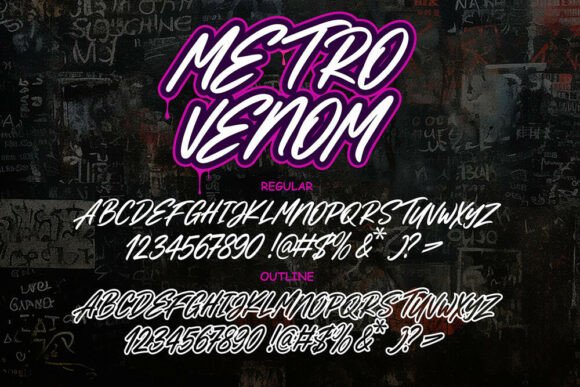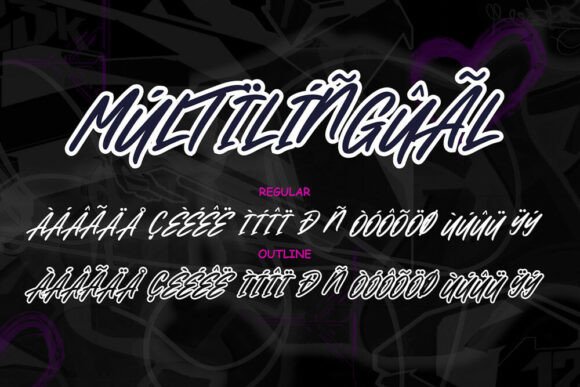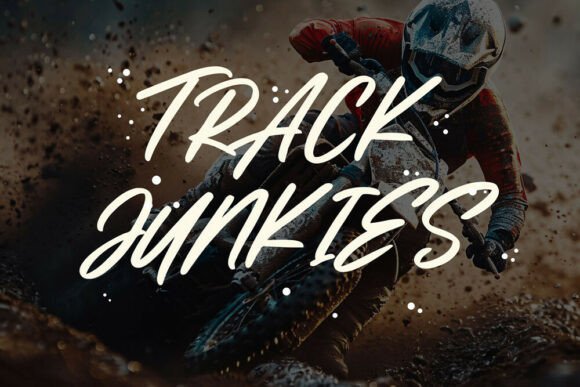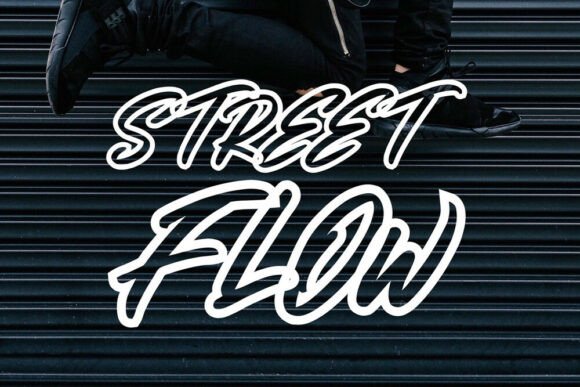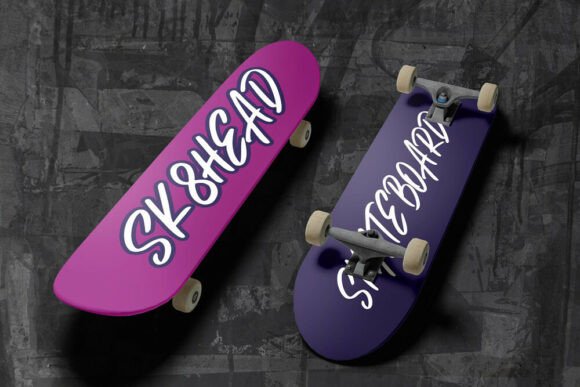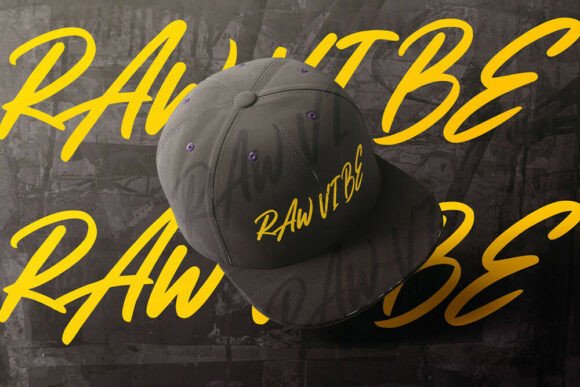
Unleashing the Power of Street Expression with Metro Venom Font
Imagine you’re working on a creative project, and you need a font that screams attitude and confidence. You’re browsing through design resources, searching for that perfect blend of raw street expression and bold contemporary design. Suddenly, you stumble upon Metro Venom Font – an outlined graffiti brush typeface that’s about to revolutionize your typography game.
With its fast strokes, sharp edges, and expressive movement, Metro Venom Font is the perfect design resource for designers who want to add a fearless personality to their visual identity. Its unique combination of brush texture and open outline makes it stand out from other fonts, giving it a high-quality, authentic feel that’s rarely found in digitally produced graffiti fonts. And the best part? You can download it for free, making it a valuable addition to any design project.
Key Features of Metro Venom Font
- Unique, bold, and modern style with a transparent background, ideal for use in various design applications.
- Includes uppercase and lowercase letters, as well as special characters, to provide comprehensive support for creative projects.
- Perfect for use in logo design, typography, and other creative applications where a bold and modern font is required.
Honest Review: Metro Venom Font
I recently stumbled upon the Metro Venom Font and was excited to give it a try. As a designer, I’m always on the lookout for new and high-quality design resources to enhance my creative projects. And, to my delight, this font definitely delivered.
Here are some of the things that worked well for me:
- ✨ Unique and edgy design aesthetic that sets it apart from more traditional fonts
- ✨ High-quality vector files that can be scaled up or down without losing any detail
- ⚠️ Limited font styles and weights, which may not be ideal for designers working on complex projects
- ⚠️ No transparent background option, which can make it tricky to use in designs with complex backgrounds
Overall, I was impressed with the Metro Venom Font’s unique design and high-quality vector files. While it may not be the most versatile font, it’s a great choice for designers working on projects that require a bold, edgy look. And, at no cost, it’s definitely worth considering as a design resource for your next creative project.
The Metro Venom Font is ideal for creative projects that require a high-quality, modern font. Some common use cases include:
- Print and digital advertising
- Graphic design and illustration
For the best results, use the Metro Venom Font with a transparent background to create a clean and modern design. You can also experiment with different font sizes, colors, and combinations to find the perfect look for your project.